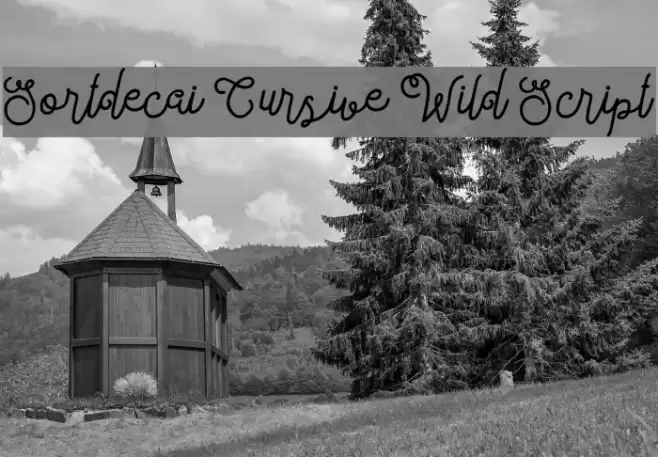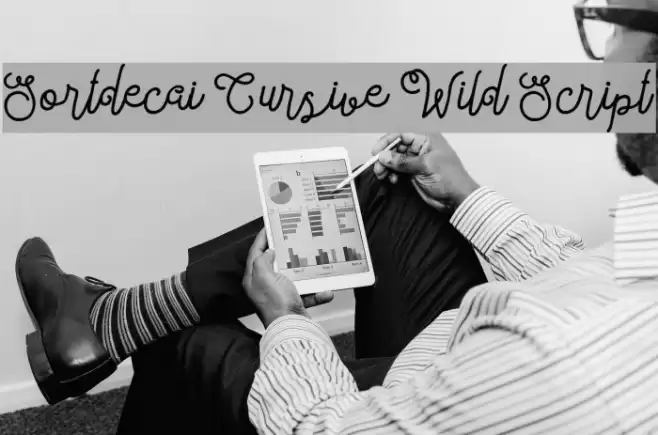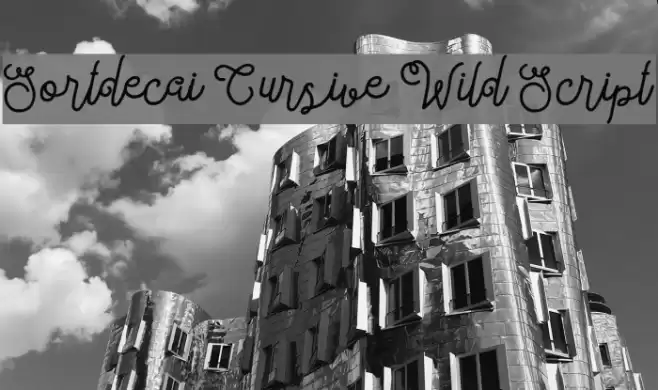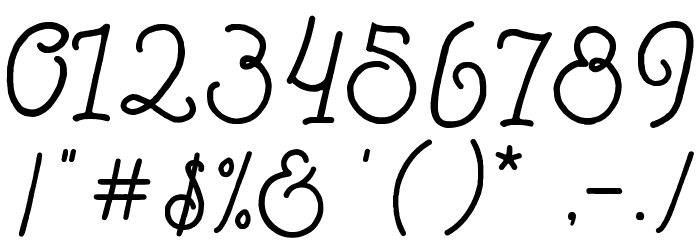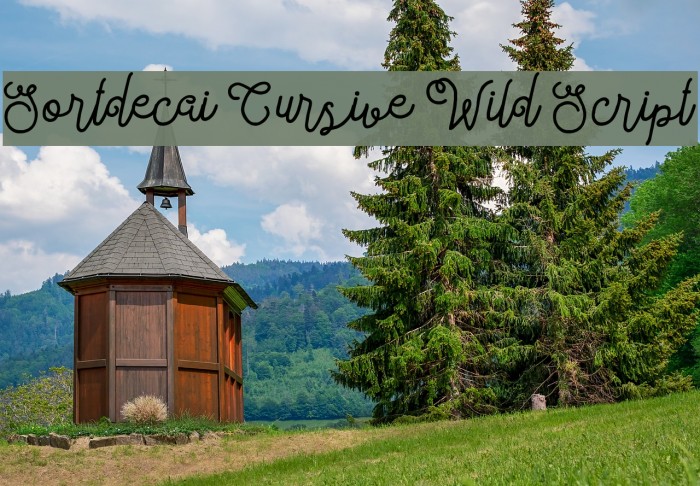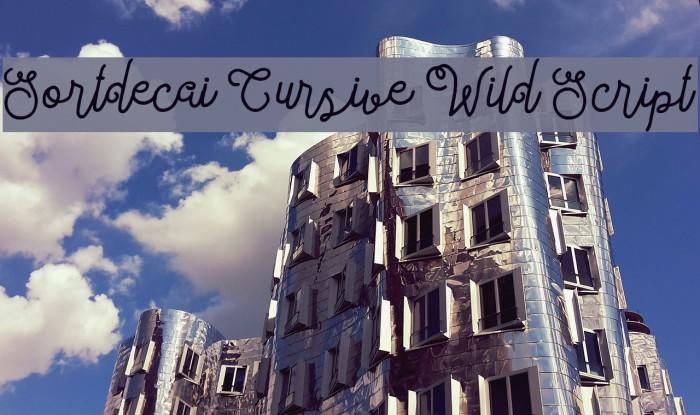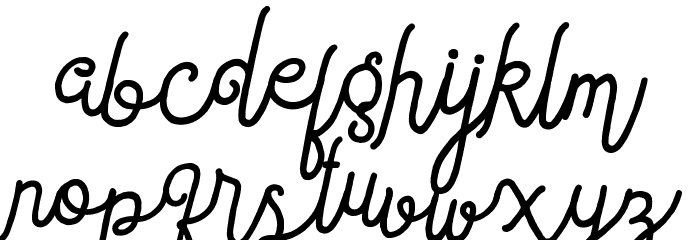
Sortdecai Cursive Wild Script Font
Sortdecai Cursive Wild Script Description
This font features a whimsical and playful cursive style, characterized by its flowing and interconnected letterforms. Each character is adorned with unique loops and swirls, giving it a lively and dynamic appearance. The uppercase letters maintain a consistent height, while the lowercase letters exhibit a more varied baseline, adding to the font's charm. The numerals and special characters are designed to match the playful aesthetic, ensuring a cohesive look across all text. This font is ideal for projects that require a touch of elegance and creativity, such as invitations, greeting cards, and artistic branding.
A whimsical cursive font with playful loops and swirls from Handwritten fonts.
- Proposed Projects: Ideal for invitations, greeting cards, artistic branding, and creative projects.
- Use Case: Headlines, Artistic branding, Invitations